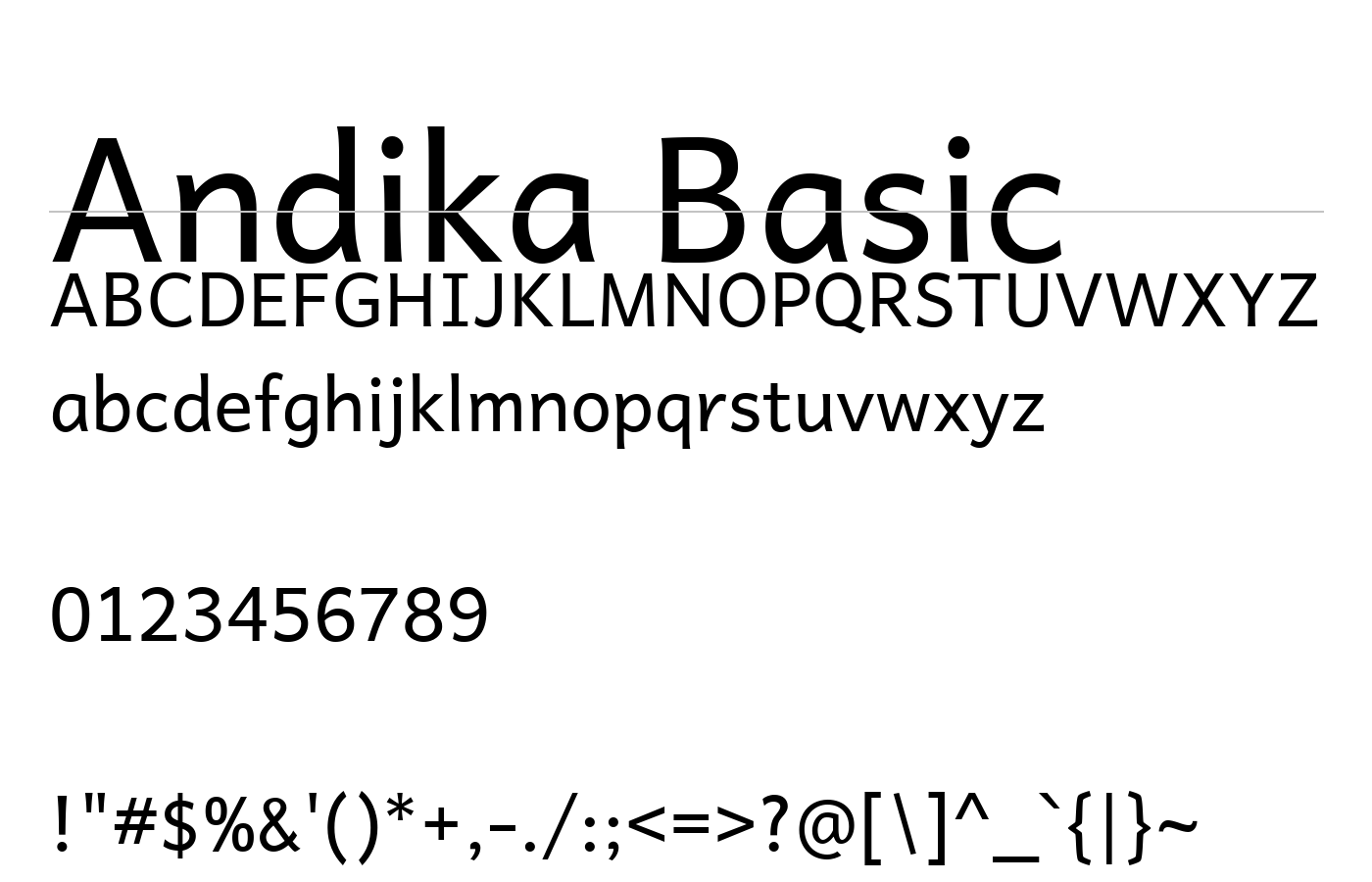
Andika Basic is a clean and legible sans serif font with a slightly condensed width and moderate contrast, making it ideal for readability. Its simple, upright letterforms with distinctive single-story 'a' and open shapes give it a friendly, approachable feel suitable for educational materials, signage, and user interfaces. This font works well in body text and headlines where clarity and accessibility are essential.
Andika Basic Font
About Andika Basic Font
| Font family | Andika Basic Font |
| Designer | Annie Olsen & Victor Gaultney |